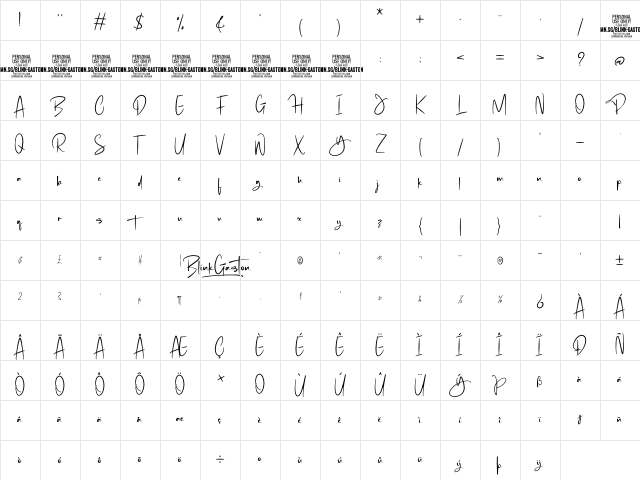
Blink Gaston PERSONAL USE Regular Free Font
Blink Gaston PERSONAL USE Regular
Foundry: Mans Greback AB
Designer: Mans Greback
Design Context for Blink Gaston PERSONAL USE
Blink Gaston PERSONAL USE is a composed and adaptable typeface that performs quietly and consistently across a wide range of design contexts.